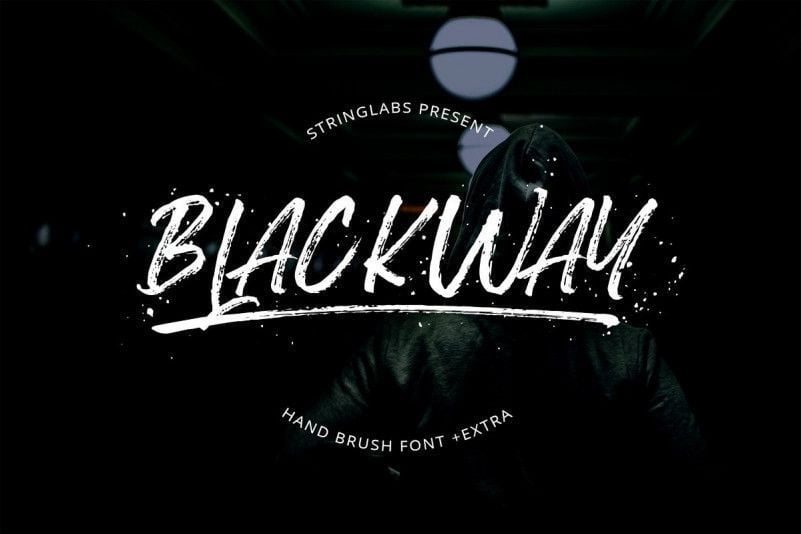
Blackway Font
Blackway Font isn’t your average brush font, it’s raw, edgy & bursting with attitude!
Hand-painted with extra attention to quick-strokes and dry textures, Blackway is guaranteed to deliver a loud, proud & carefree message – ideal for logos, handwritten quotes, product packaging, merchandise, social media & greeting cards.